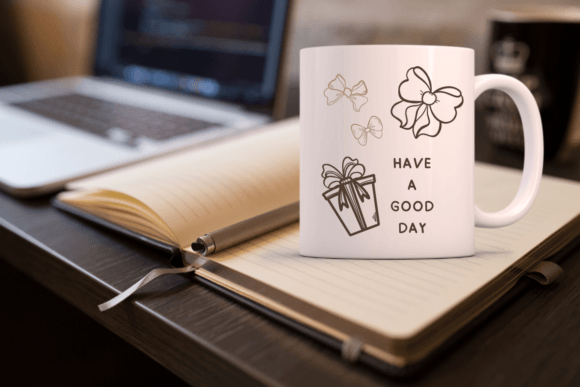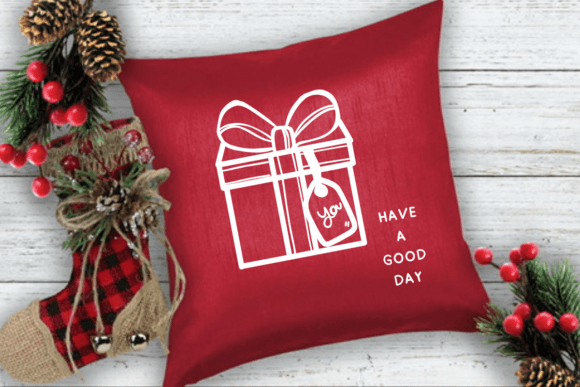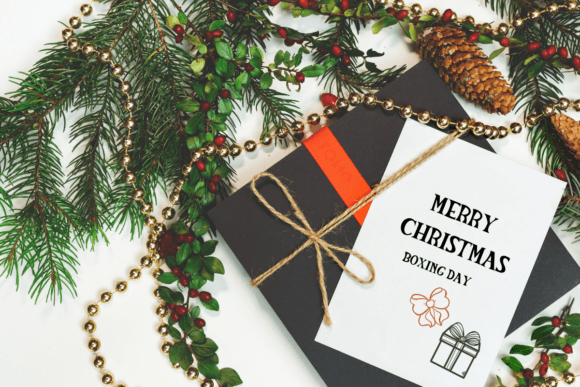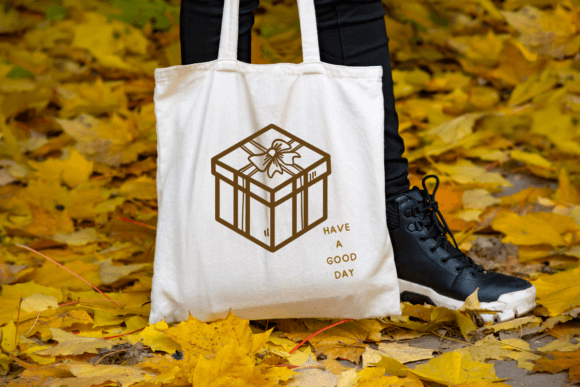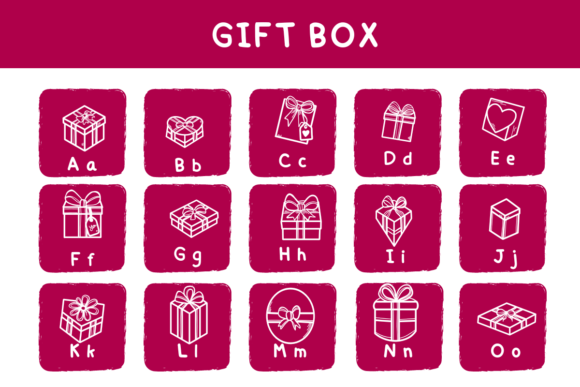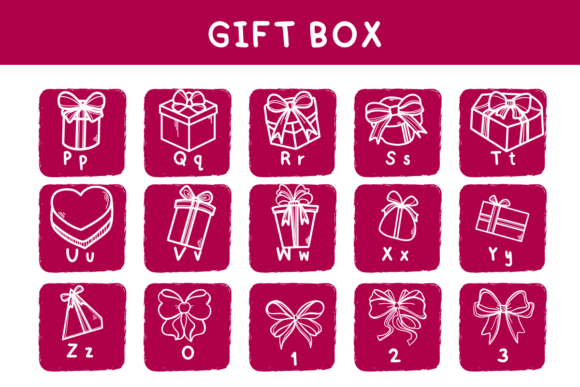
Unwrapping Creativity: The Gift Box Doodle Font
It’s that time of the year when designers start brainstorming ideas for their holiday projects – the perfect gift for a loved one, a festive card for a friend, or a merry social media post to get everyone in the mood. As you sit down with your computer and a cup of hot cocoa, you want to add a special touch to your design. And that’s where the magic happens!
Enter the Gift Box Doodle Font, a delightful dingbat font that brings a smile to your face. This adorable font is filled with various gift box designs, each one more charming than the last. With the Gift Box Doodle Font, you can easily add a festive touch to your projects and designs, making them truly special and memorable. Whether you’re a seasoned designer or a creative enthusiast, this font is a valuable addition to your toolkit.
Gift Box Doodle Font Key Features
- Font Family: Gift Box Doodle, a unique and playful font with a doodle-like design.
- Character Set: Supports a wide range of characters, including uppercase and lowercase letters, numbers, and punctuation marks.
- Size and Resolution: Designed to be scalable, with a recommended size range of 12-72 points, and a resolution of 72 dpi for optimal display.
- Unique Characteristics: Features a distinctive doodle-like design with intricate lines and patterns, making it perfect for adding a touch of whimsy to your designs.
Gift Box Doodle Font Review
Overall, I think Gift Box Doodle Font is a fun and creative choice for designers looking to add a playful touch to their projects. ✨ The font’s whimsical doodle style is reminiscent of hand-drawn illustrations, making it perfect for children’s books, educational materials, or any project that requires a lighthearted feel.
- ✨ Unique and playful design that adds visual interest to any project
- ✨ Highly customizable, with various font weights and sizes to choose from
- ✨ Works well for digital and print projects, making it a versatile choice for designers
- ⚠️ The font may not be suitable for projects that require a professional or formal tone
- ⚠️ Some characters may not be fully compatible with certain software or operating systems
- ⚠️ The font’s doodle style may not be to everyone’s taste, so it’s essential to test it thoroughly before using it in a project
Overall, I think Gift Box Doodle Font is a great choice for designers who want to add a playful touch to their projects. While it may not be suitable for every project, it’s a fun and creative font that can help bring a smile to your audience’s faces.
Tips for Getting the Most Out of Gift Box Doodle Font
Use Gift Box Doodle Font to add a playful and creative touch to your designs.
Combine it with other doodle fonts for a unique and eye-catching effect.
Experiment with different font sizes, colors, and arrangements to create a visually appealing design.
Gift Box Doodle Font is perfect for:
Gift tags and wrapping paper
Invitations and party decorations
Wedding and event designs
Children’s party and nursery designs